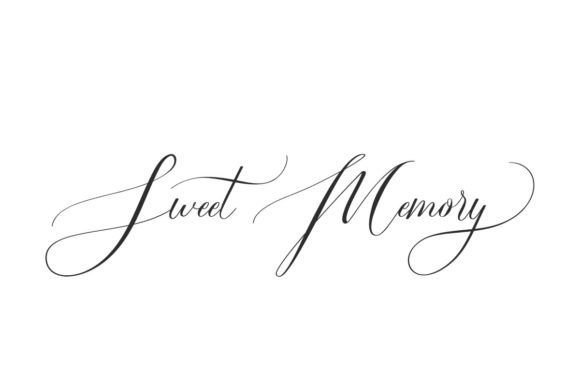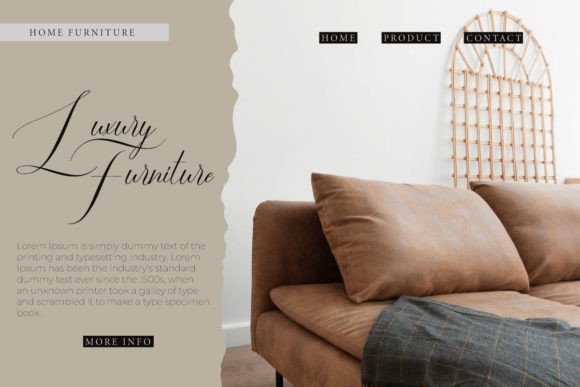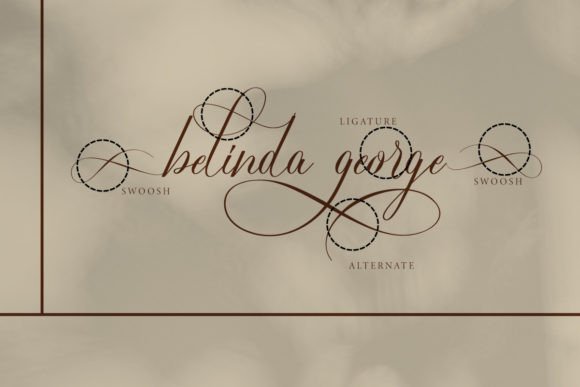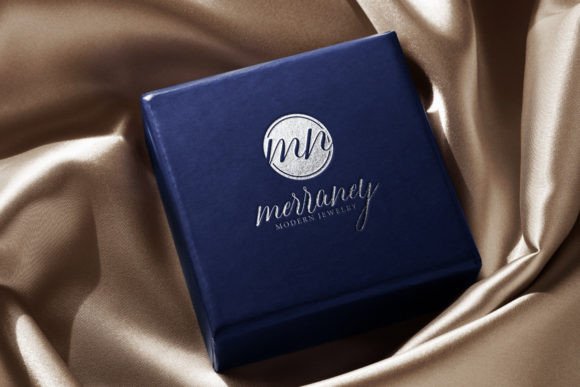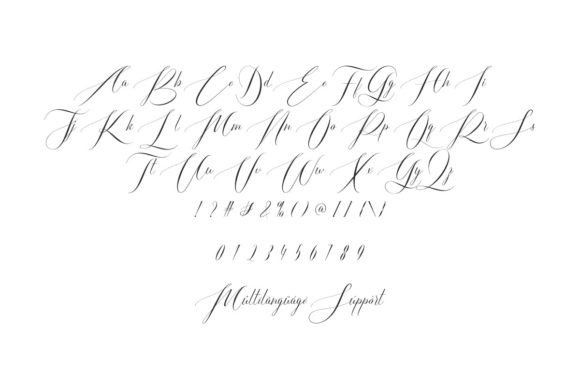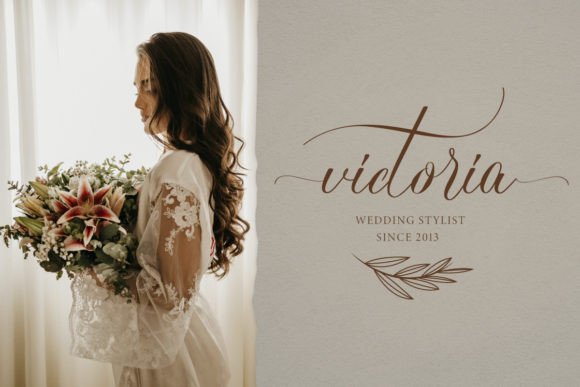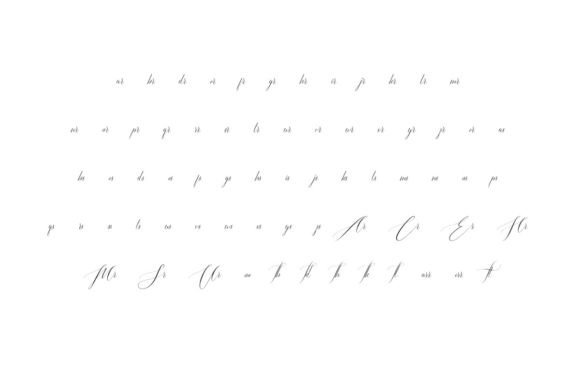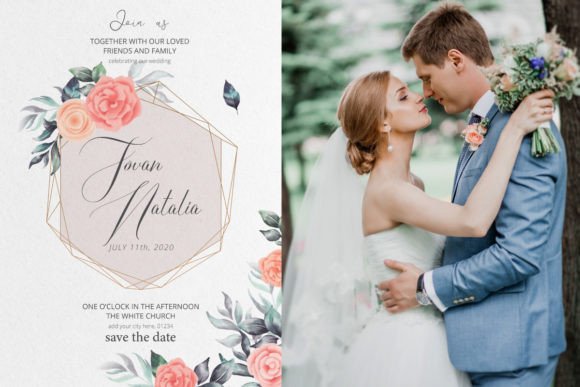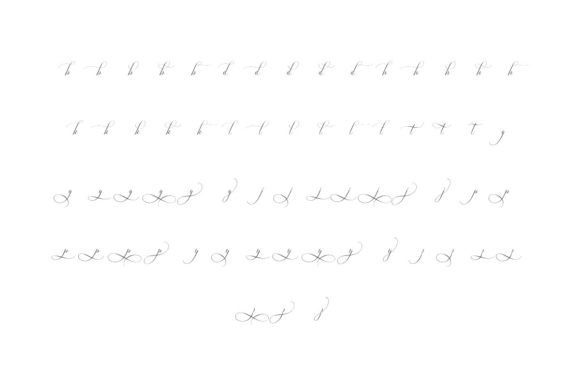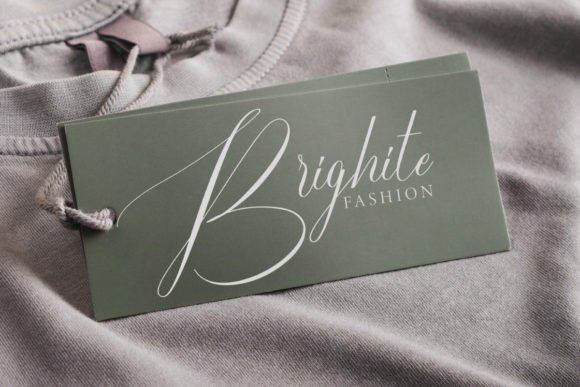
Sweet Memory Font
About Sweet Memory Font
The “Sweet Memory Font” presents a distinctive and minimalist style, adding a special touch to the appearance of its letters. This font is designed to be versatile, making it well-suited for various projects, including logo branding, lettering, product packaging, signage, social media posts, and stationery. Its unique style is crafted to stand out and make a statement in any application.
The inclusion of complementary characters, such as alternates and swoosh, enhances the font’s versatility, allowing for a blend of classy and exclusive shapes. This feature enables designers to create a customized and standout look that suits the specific requirements of their projects. Whether you’re aiming for a sleek and modern design or a more sophisticated and exclusive feel, “Sweet Memory Font” provides the elements needed to achieve your desired aesthetic.
In summary, “Sweet Memory Font” is more than just a typeface; it’s a design tool crafted to elevate your creative projects. Its minimalist and special style, combined with complementary characters, makes it a valuable addition to various design applications. Whether you’re working on digital or print projects, this font invites you to infuse your designs with a touch of uniqueness and sophistication.